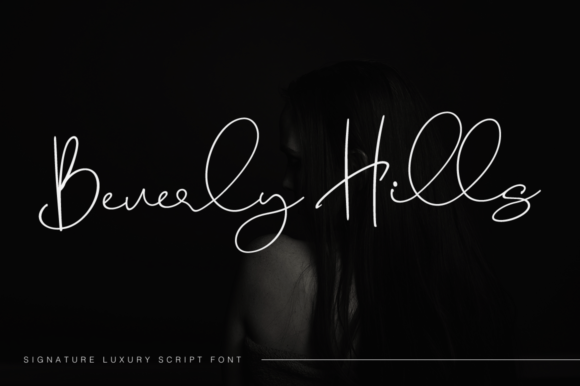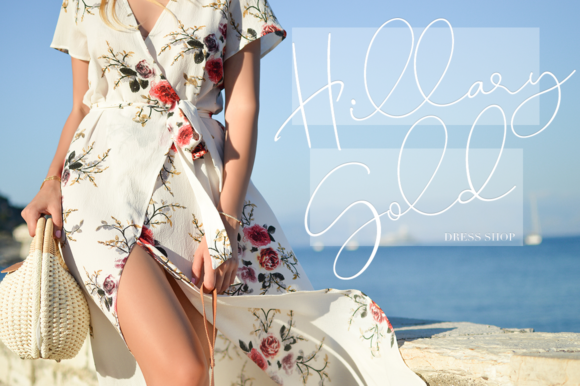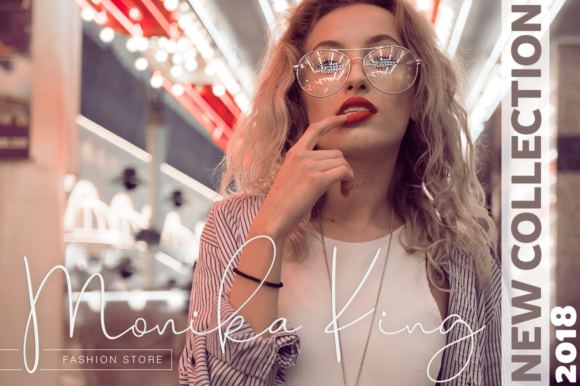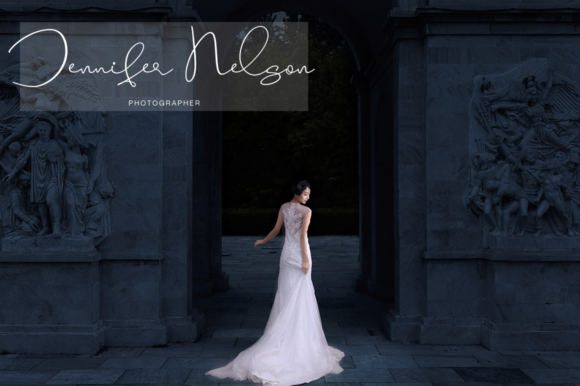
Beverly Hills Font: Elegant Script for Wedding Invitations & Branding
About the Beverly Hills Font
Discover the charm of Beverly Hills Font. This font is a perfect blend of modern aesthetics and classic appeal. Beverly Hills is a fresh handmade script.
Because of its up-to-date look, it’s perfect for modern-age branding, because of its playful look, it’s perfect for wedding invites, personal blogs and many different types of personal projects.
Its playful yet sophisticated nature makes Beverly Hills ideal for branding projects requiring a touch of elegance, particularly in the fashion, beauty, or lifestyle sectors. It excels in headlines, short text blocks on invitations or packaging, and even short social media captions. However, its handmade quality makes it less suitable for body text or extensive use in user interfaces where readability is paramount.
For optimal pairings, consider a clean sans-serif like Montserrat or Open Sans for body text to provide a strong contrast and enhance readability. A geometric sans-serif such as Futura would add a modern edge, while a classic serif like Garamond could provide a touch of timeless sophistication.
Beverly Hills projects an overall mood of friendly elegance, balancing a modern feel with a handcrafted charm. This makes it versatile but requires careful consideration of its legibility limitations when choosing applications.
Beverly Hills Font Usage Examples
Beverly Hills Font Example